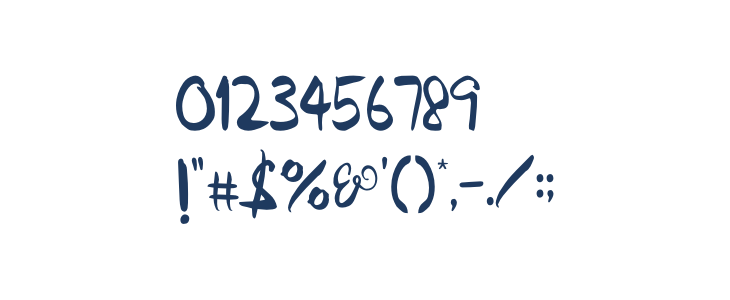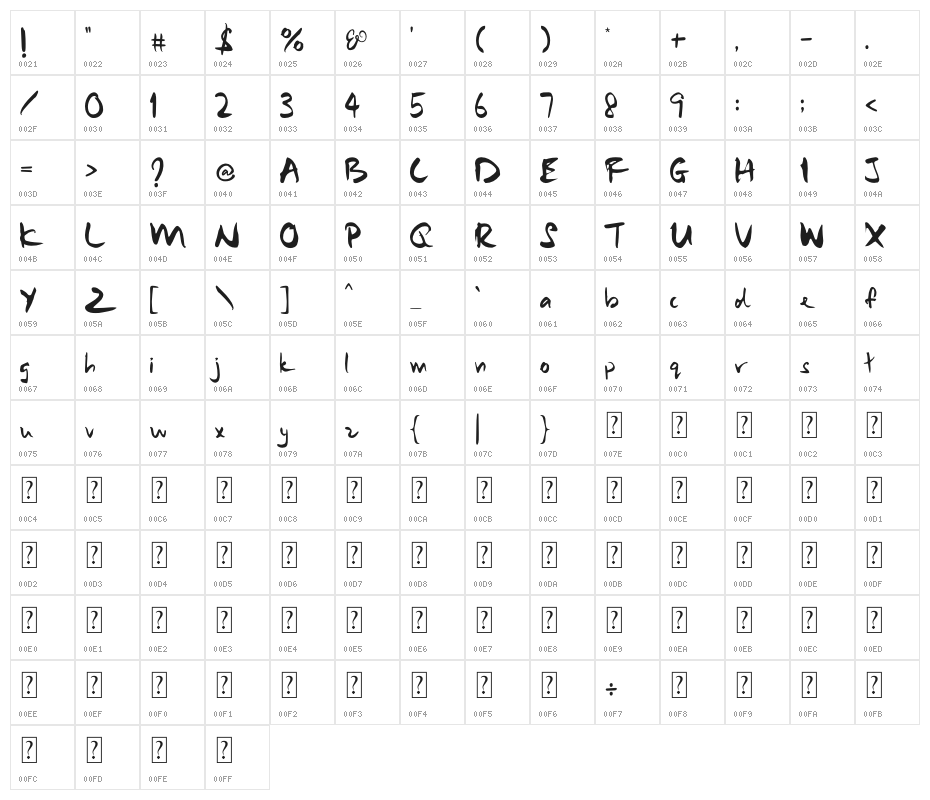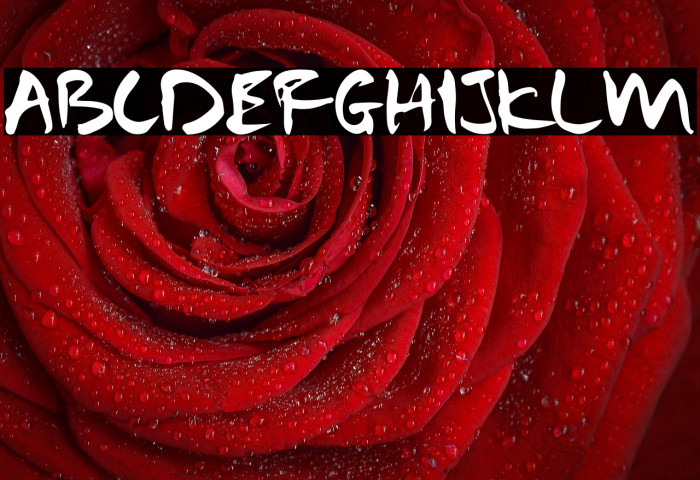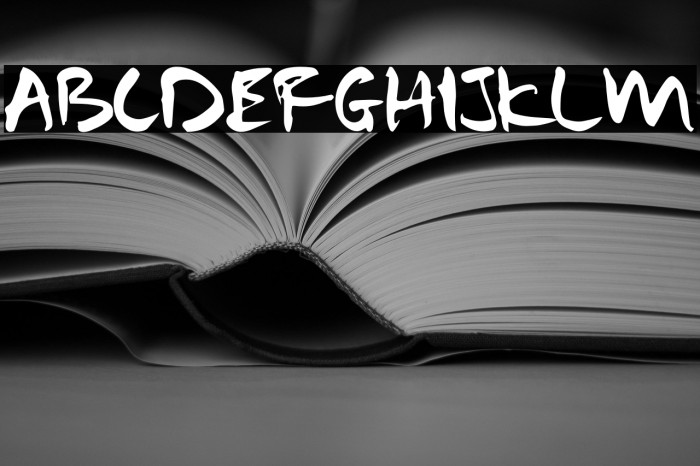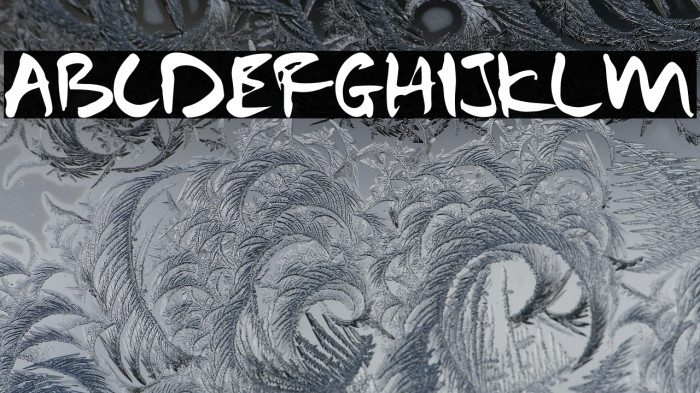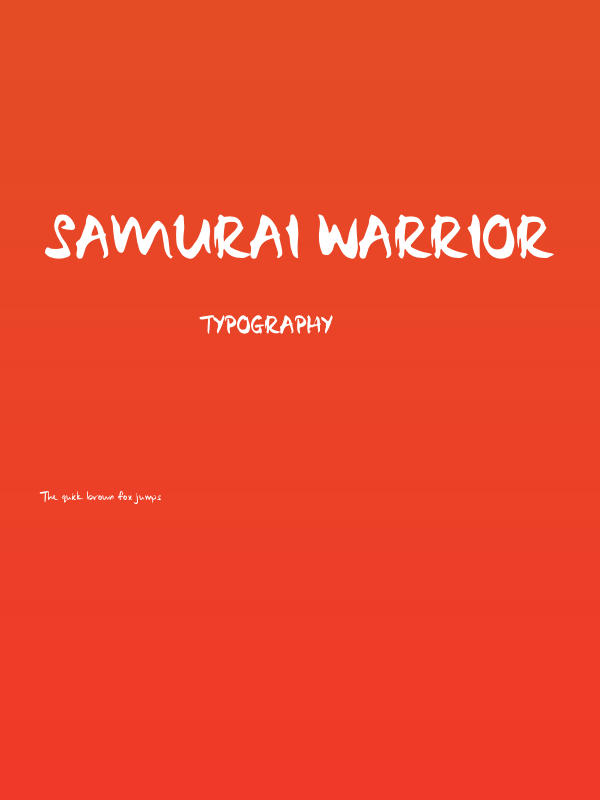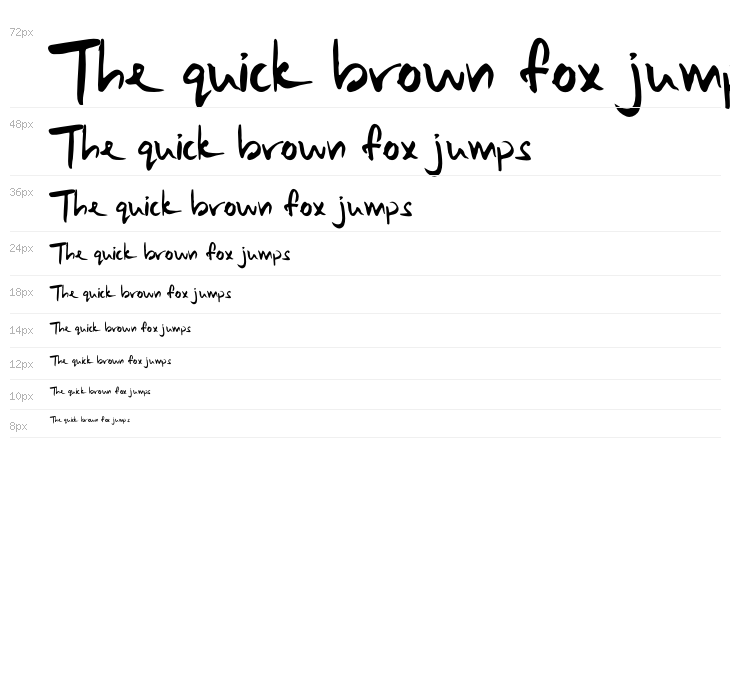
Samurai Warrior Font
Samurai Warrior Description
This font exudes a bold and dynamic presence, characterized by its brush-like strokes and fluid, organic forms. The uppercase letters are robust and assertive, while the lowercase letters maintain a consistent flow, adding a touch of elegance. The numerals are distinct and easily readable, complementing the overall style. Special characters are creatively designed, enhancing the font's artistic appeal. The font's unique style is reminiscent of traditional calligraphy, yet it carries a modern twist, making it versatile for various design needs.
Proposed ProjectsIdeal for projects requiring a strong visual impact, such as posters, branding, and packaging design. It can also be used for artistic book covers or creative digital content.